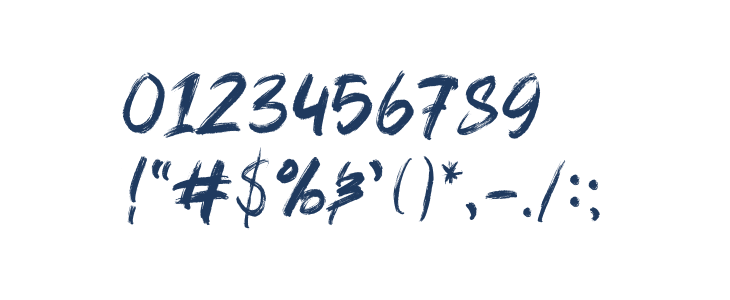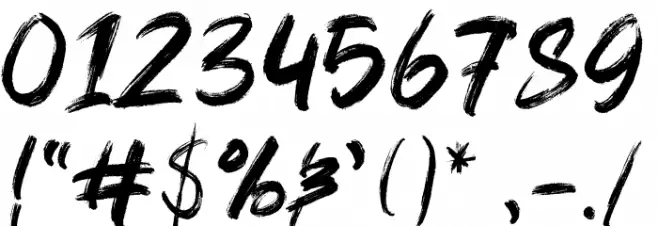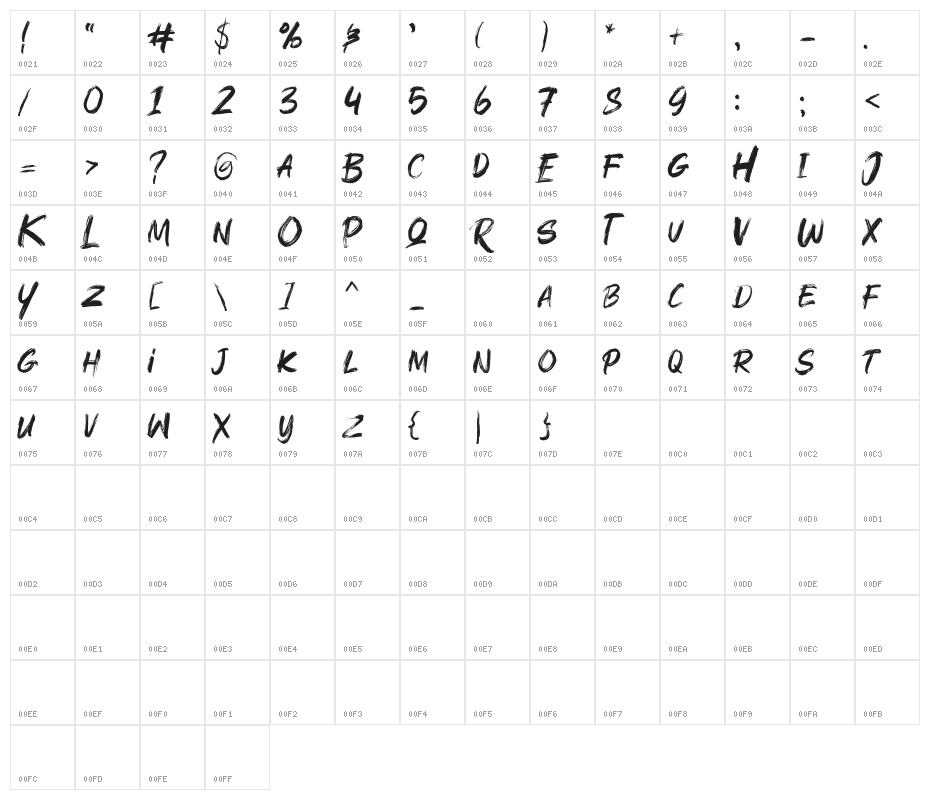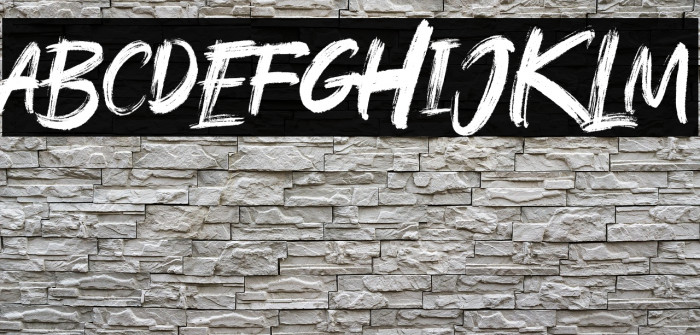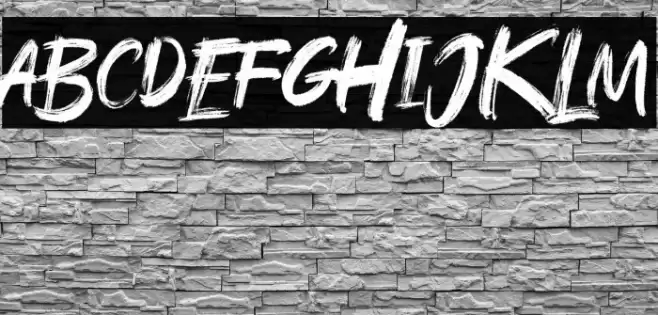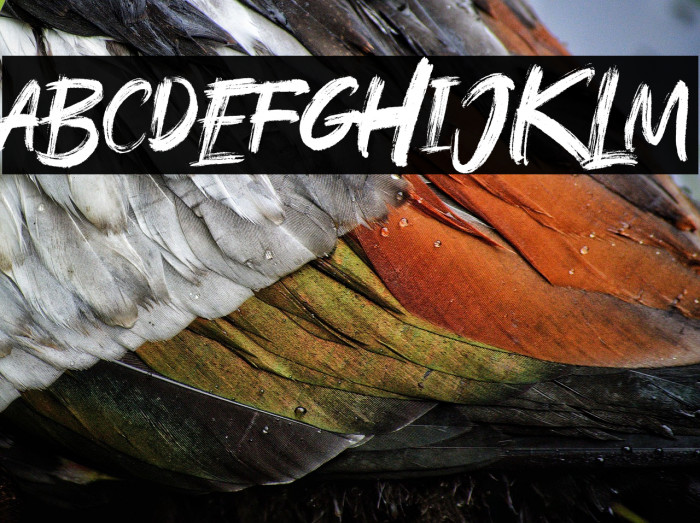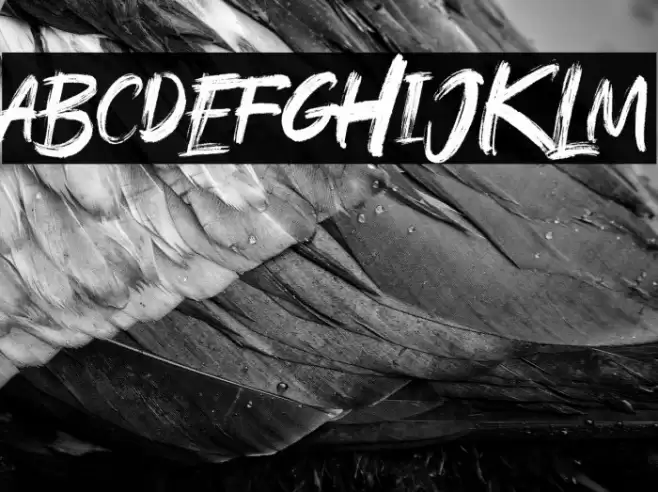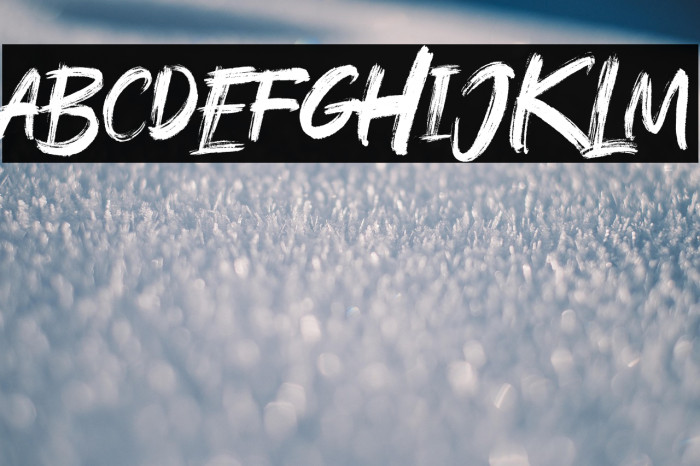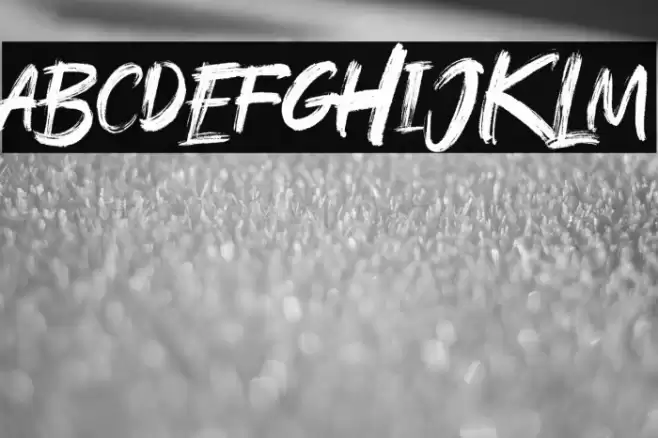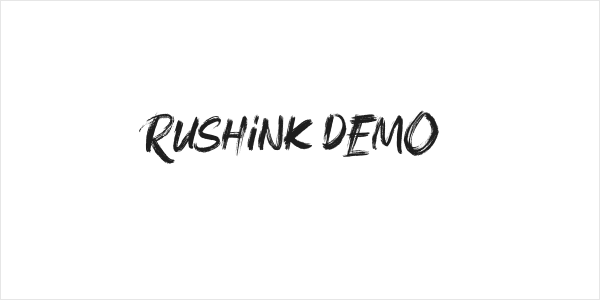
Rushink DEMO Font
Rushink DEMO Description
This font exudes a bold and energetic style, characterized by its brush-like strokes and dynamic movement. The letters are crafted with a sense of spontaneity, giving them a hand-painted appearance. The uppercase and lowercase letters maintain a consistent flow, while the numbers and special characters complement the overall aesthetic. The strokes vary in thickness, adding a sense of depth and texture. This font is ideal for projects that require a lively and artistic touch, making it suitable for creative designs and expressive typography.
| Proposed Projects | Ideal for posters, branding, album covers, and artistic projects that require a bold, expressive touch. |